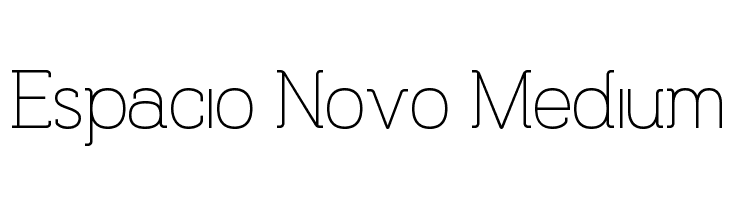
( Font by Nick A. Lynch )
A bold, geometric font with a futuristic and industrial style.
( Font by Nick A. Lynch )
A bold, italicized font with a modern, angular design.
( Font by Nick A. Lynch )
A bold, italicized font with a modern and dynamic style.
A bold, 3D geometric font with halftone shading and a strong visual impact.
A modern, geometric font with thin, uniform strokes and a minimalist design.
A modern, thin-stroked font with a geometric and elegant design.
A clean, geometric font with consistent stroke widths and a modern aesthetic.
A modern, geometric sans-serif font with clean lines and balanced spacing.
A bold, distressed font with a vintage, rugged appearance.